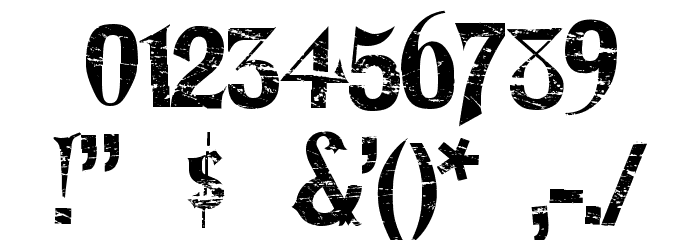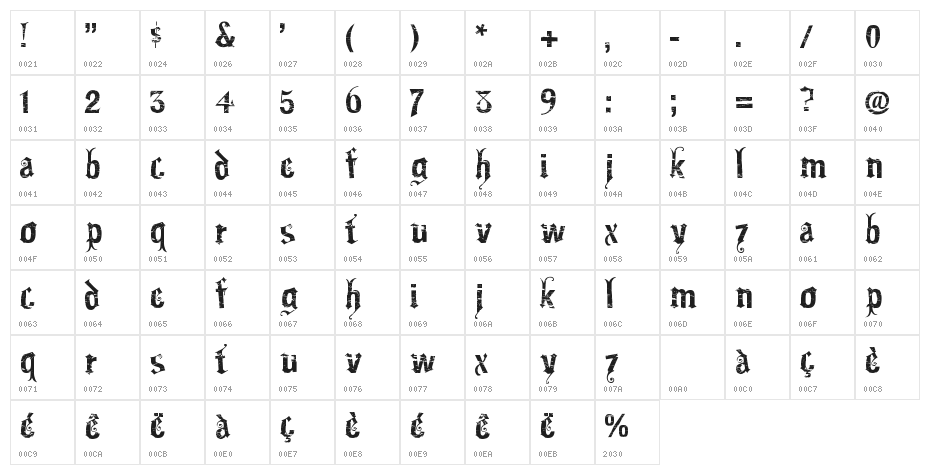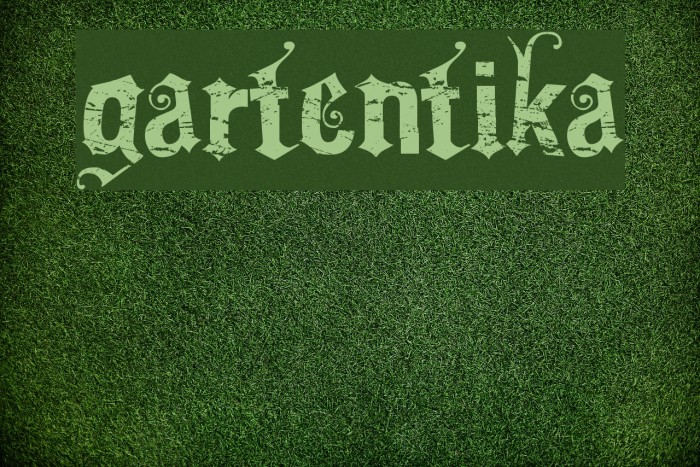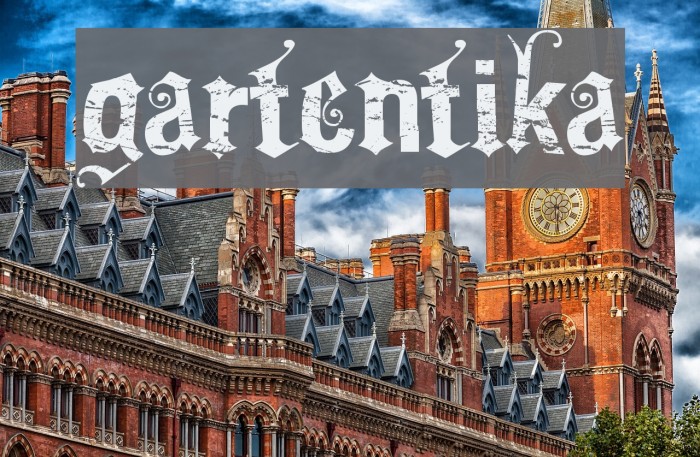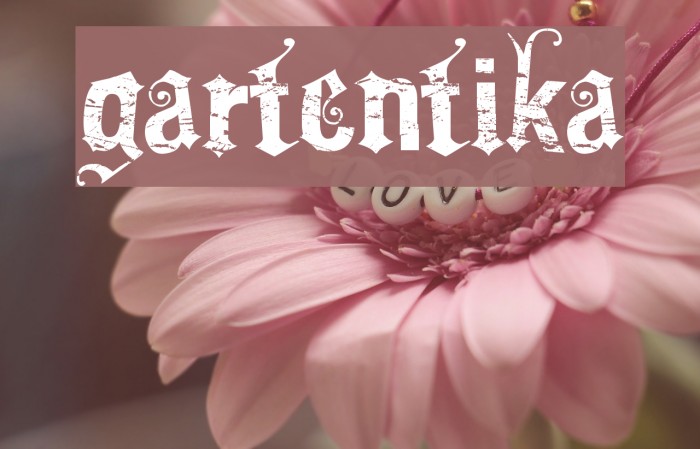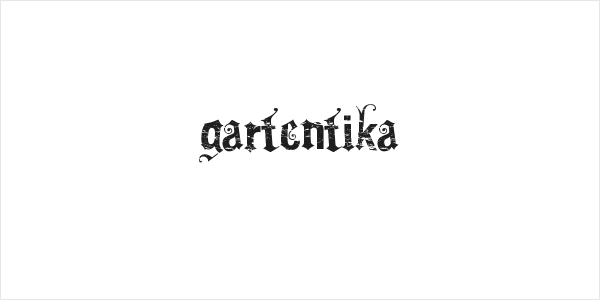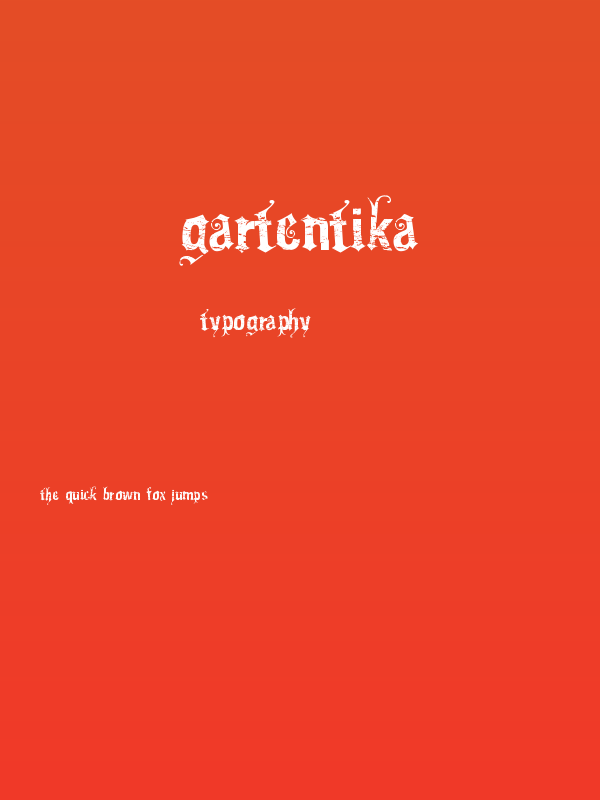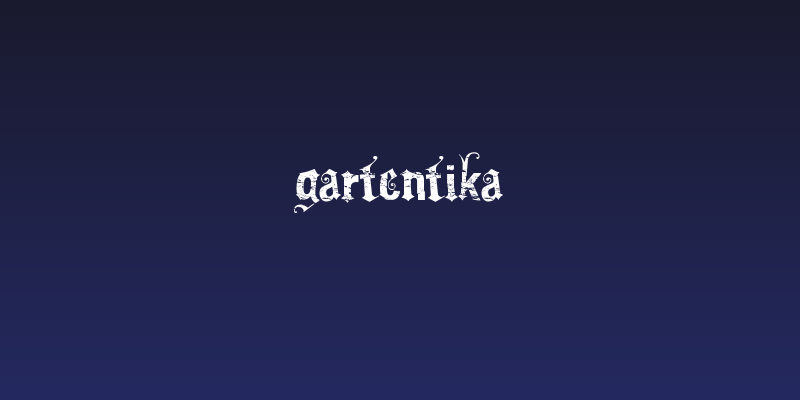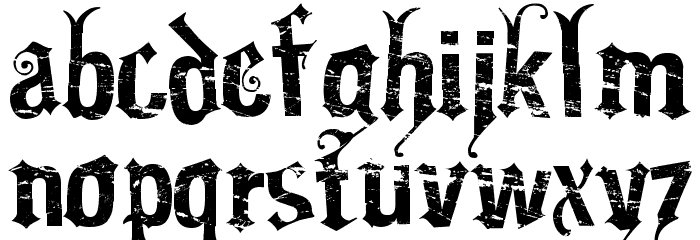
Gartentika Font
Gartentika Description
This font exhibits a bold and distressed blackletter style, characterized by its intricate and ornate design. The letters feature sharp, angular strokes with decorative elements that give it a vintage and gothic appearance. The texture of the font suggests a worn or aged look, adding to its historical and dramatic feel. It maintains a consistent weight throughout, with high contrast between thick and thin strokes, enhancing its visual impact. The font's unique style is reminiscent of medieval script, making it suitable for projects that require a touch of antiquity and elegance.